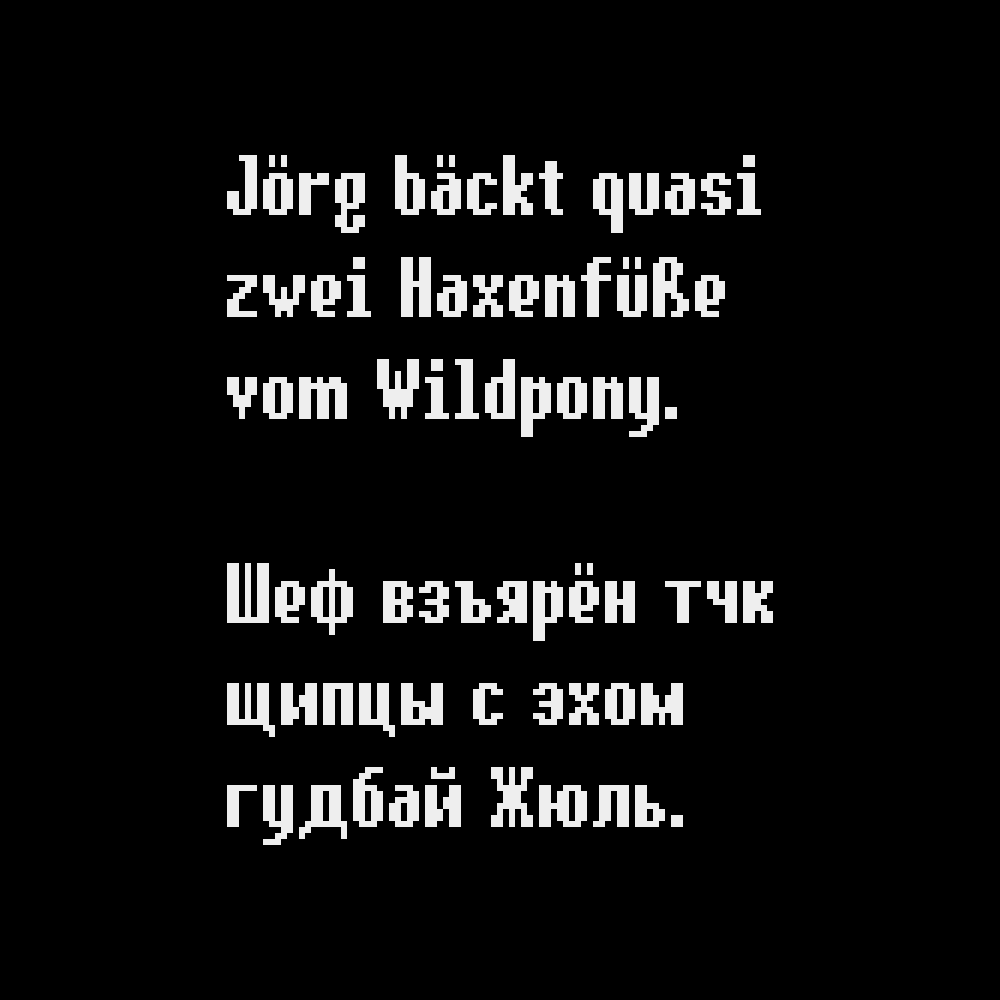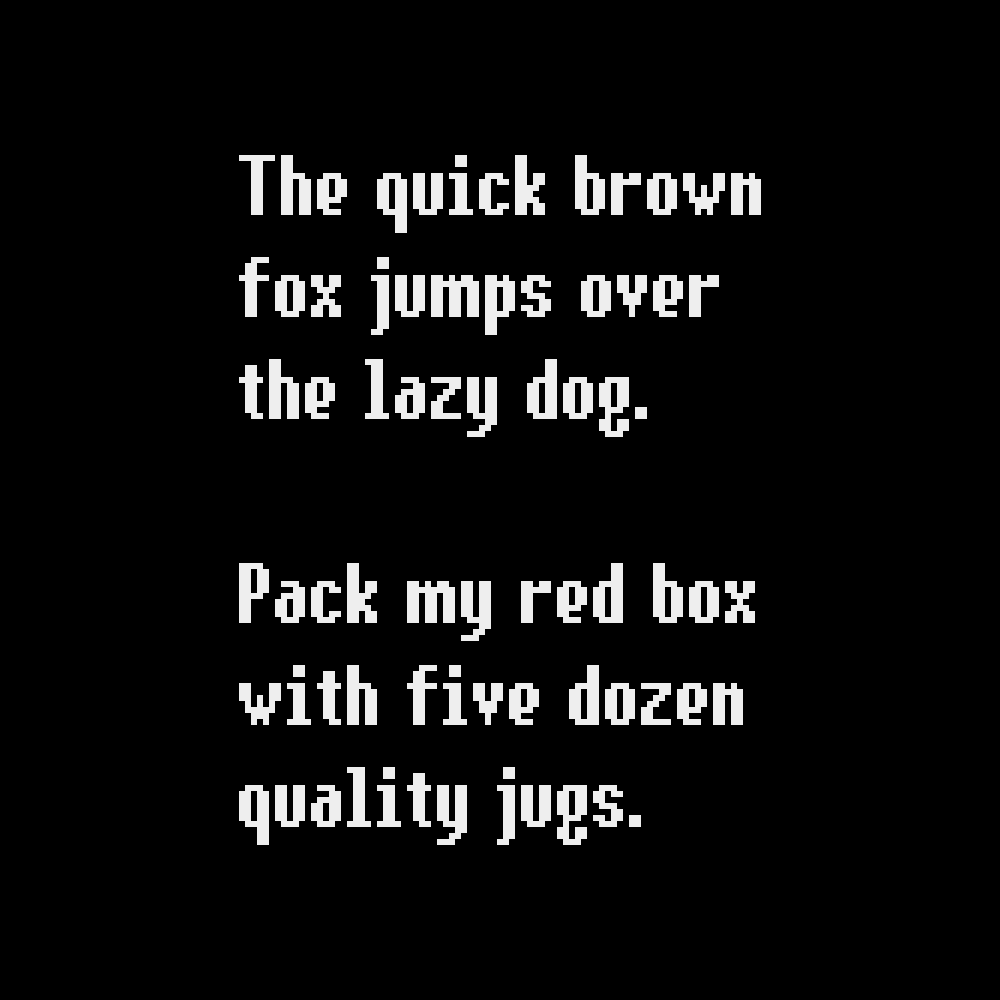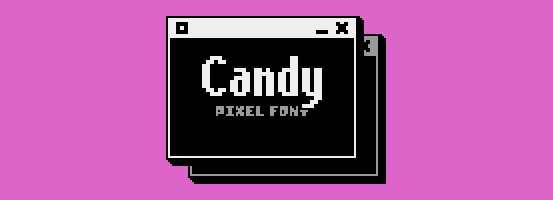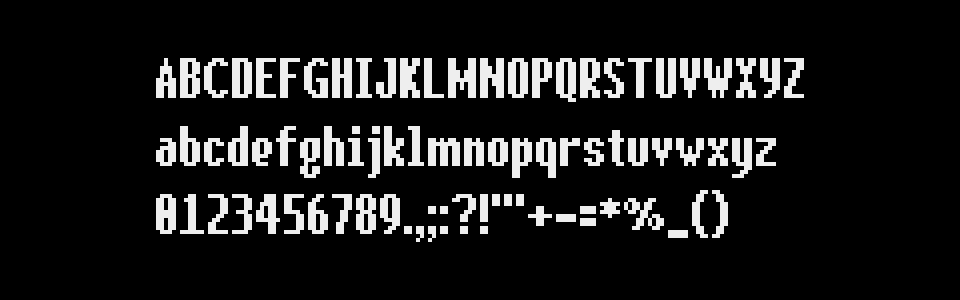
A downloadable pixel font
Candy is a charming, legible, 10px tall pixel font!
Full Character Set:
ABCDEFGHIJKLMNOPQRSTUVWXYZ abcdefghijklmnopqrstuvwxyz 0123456789.,;:?!"'+-=*%_() []{}~#&@©®™°^`|/\<>…€$£¢¿¡“”‘’«»‹›„‚·• ÀÁÂÄÃÅĄÆÇĆÐÈÉÊËĘĞÌÍÎÏİŁÑŃÒÓÔÖÕŐØŒŚŞẞÞÙÚÛÜŰÝŸŹŻàáâäãåąæçćðèéêëęğìíîïıłñńòóôöõőøœśşßþùúûüűýÿźżАБВГҐДЕЁЄЖЗИІЇЙКЛМНОПРСТУФХЦЧШЩЪЫЬЭЮЯабвгґдеёєжзиіїйклмнопрстуфхцчшщъыьэюя
Supported languages:
English, French, Italian, German, Spanish, Portuguese, Danish, Swedish, Norwegian, Icelandic, Hungarian, Polish, Turkish, Russian, Ukrainian…